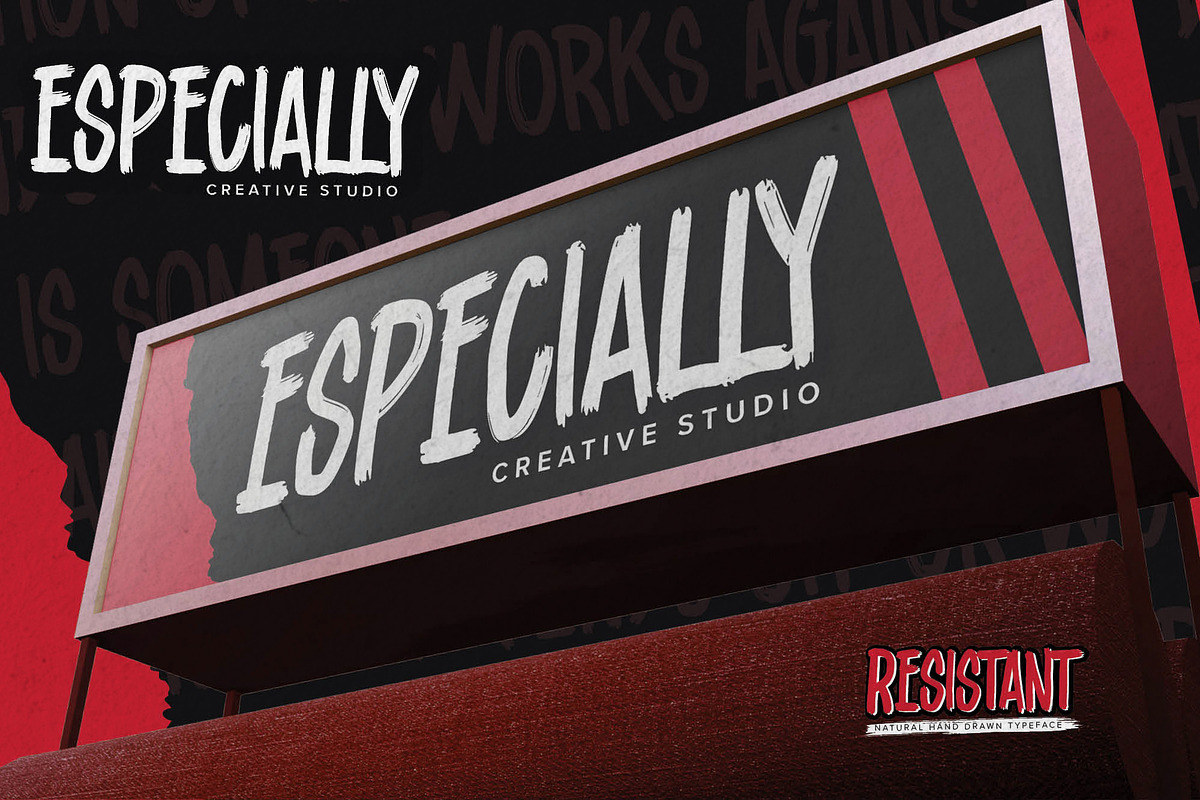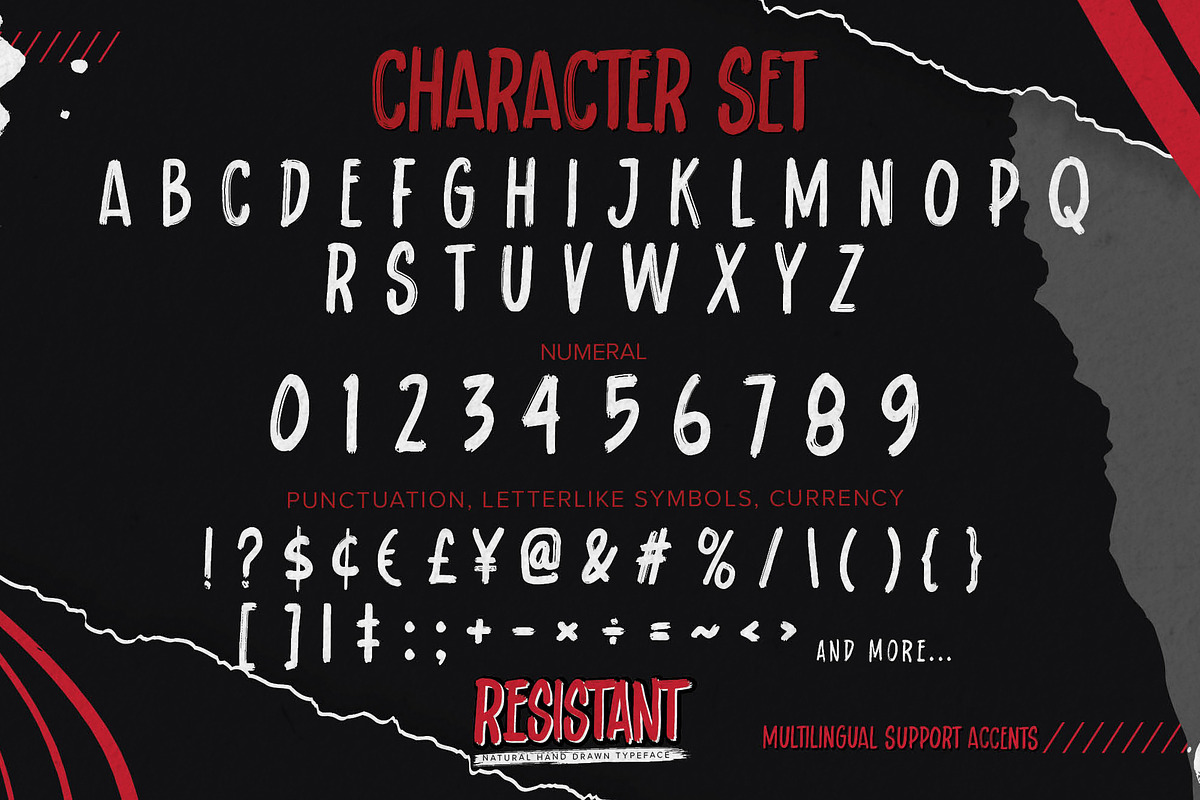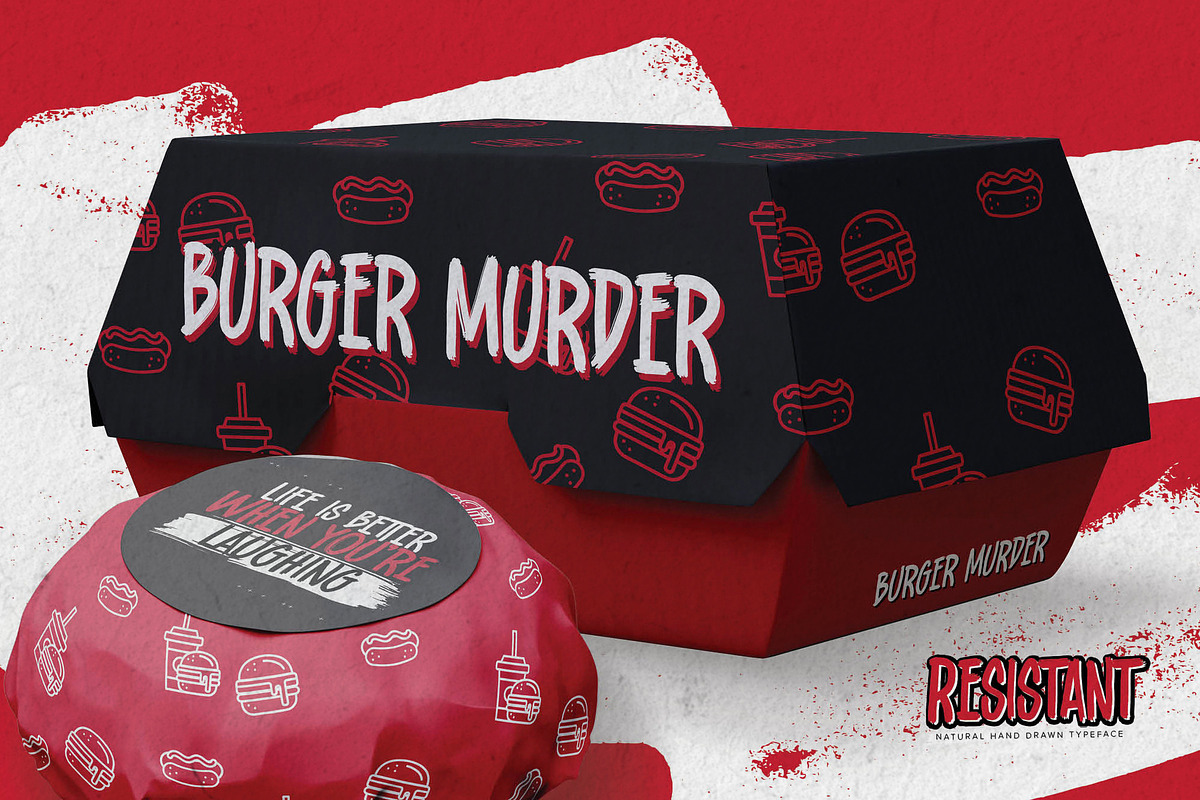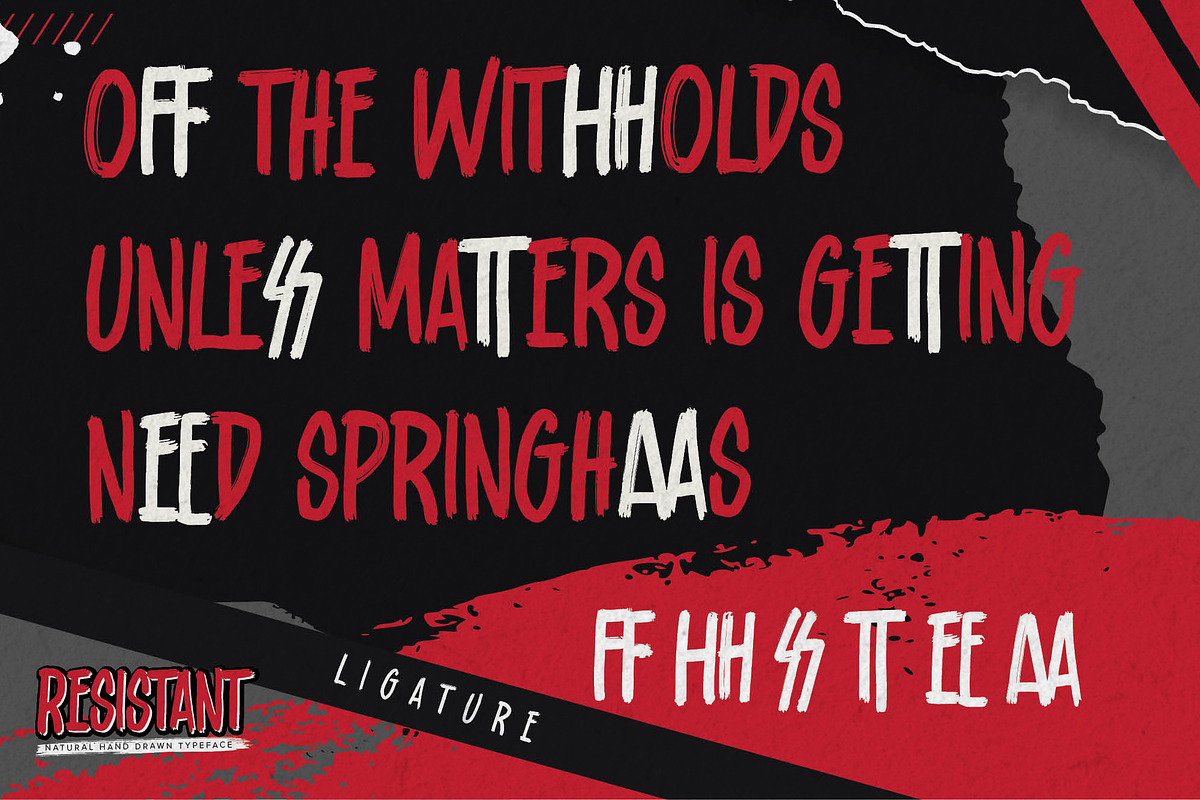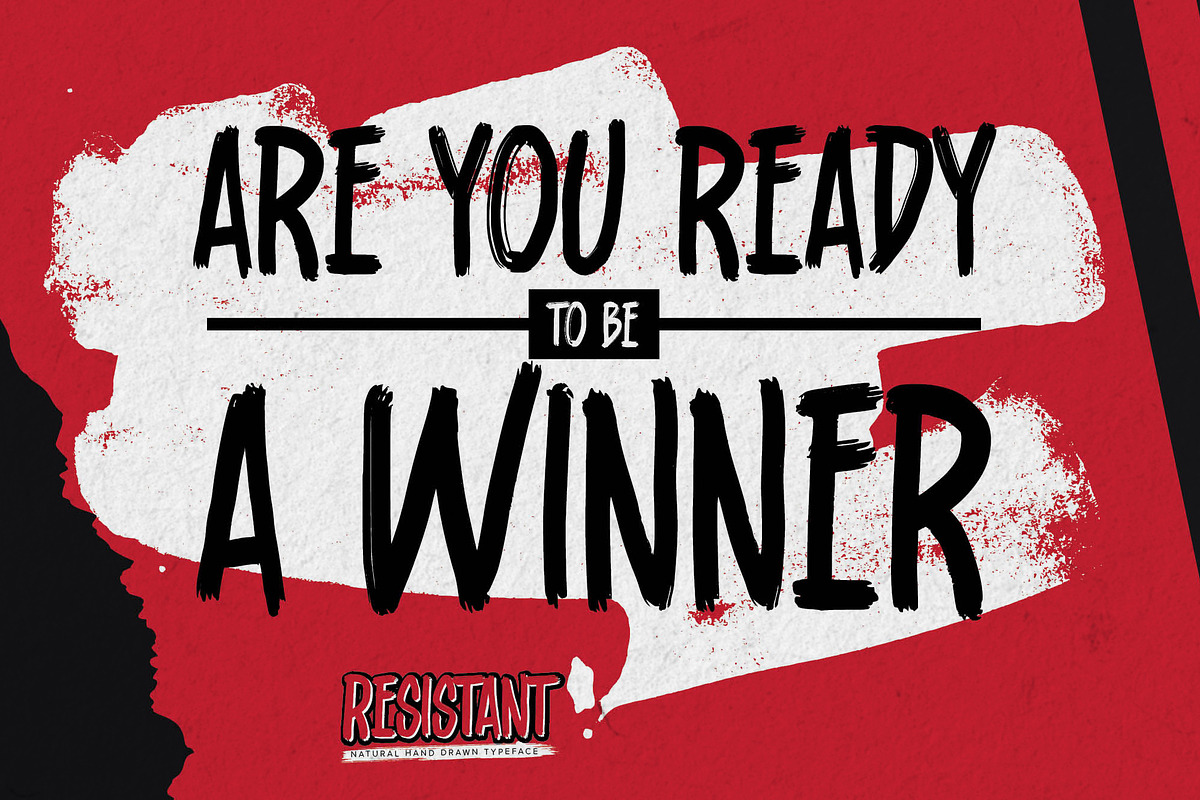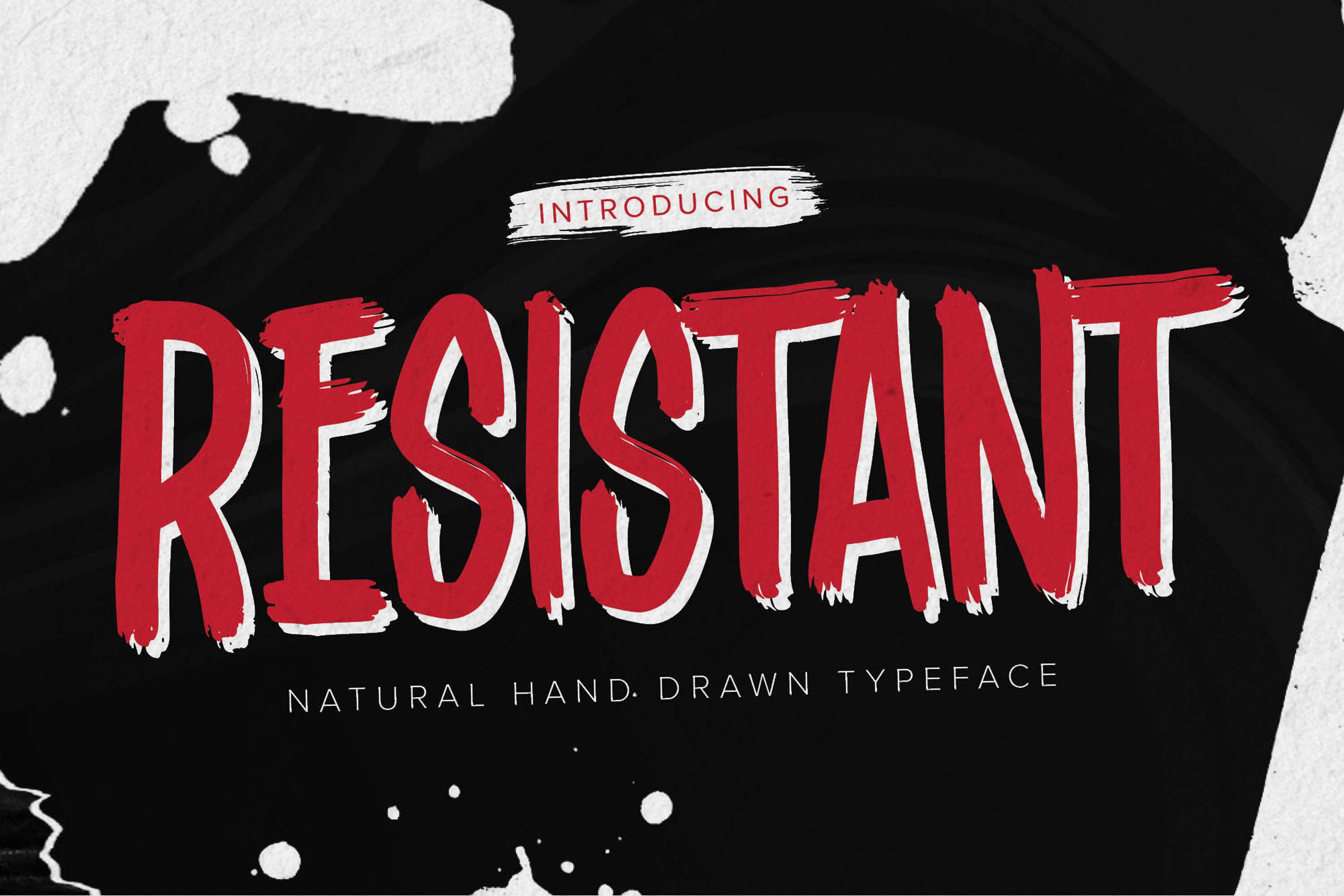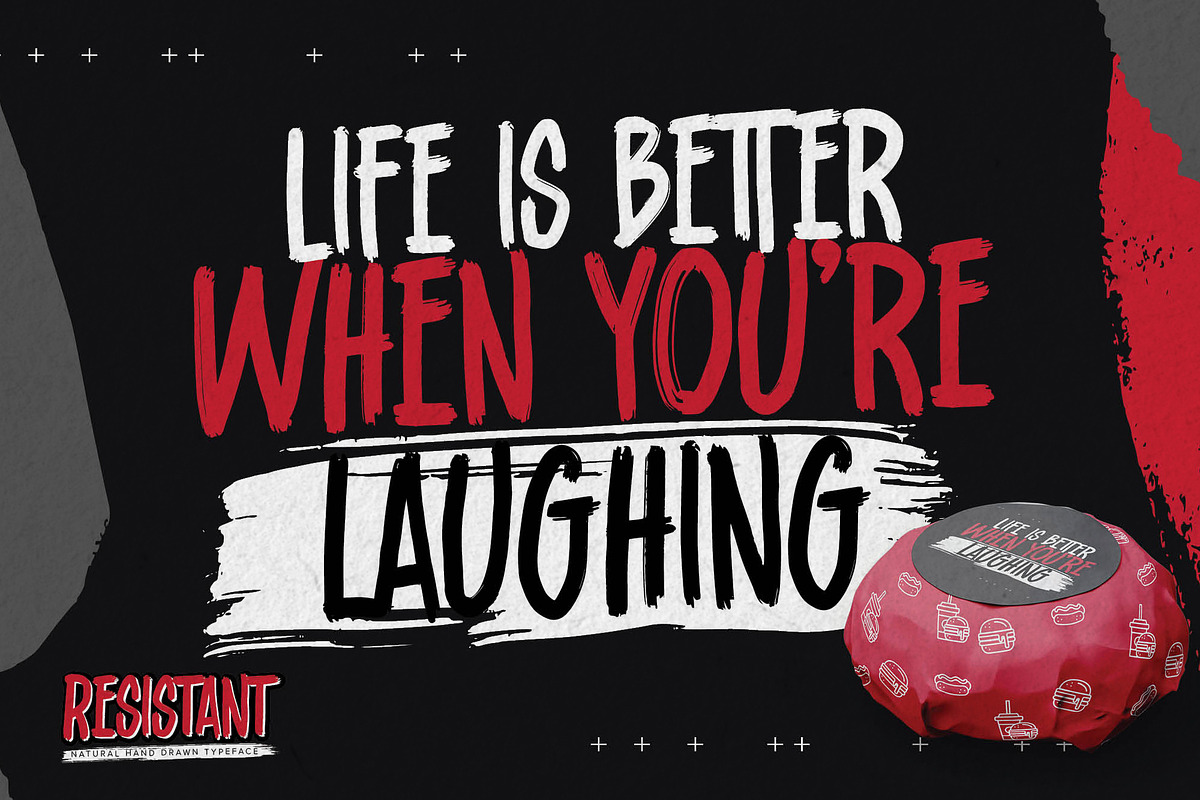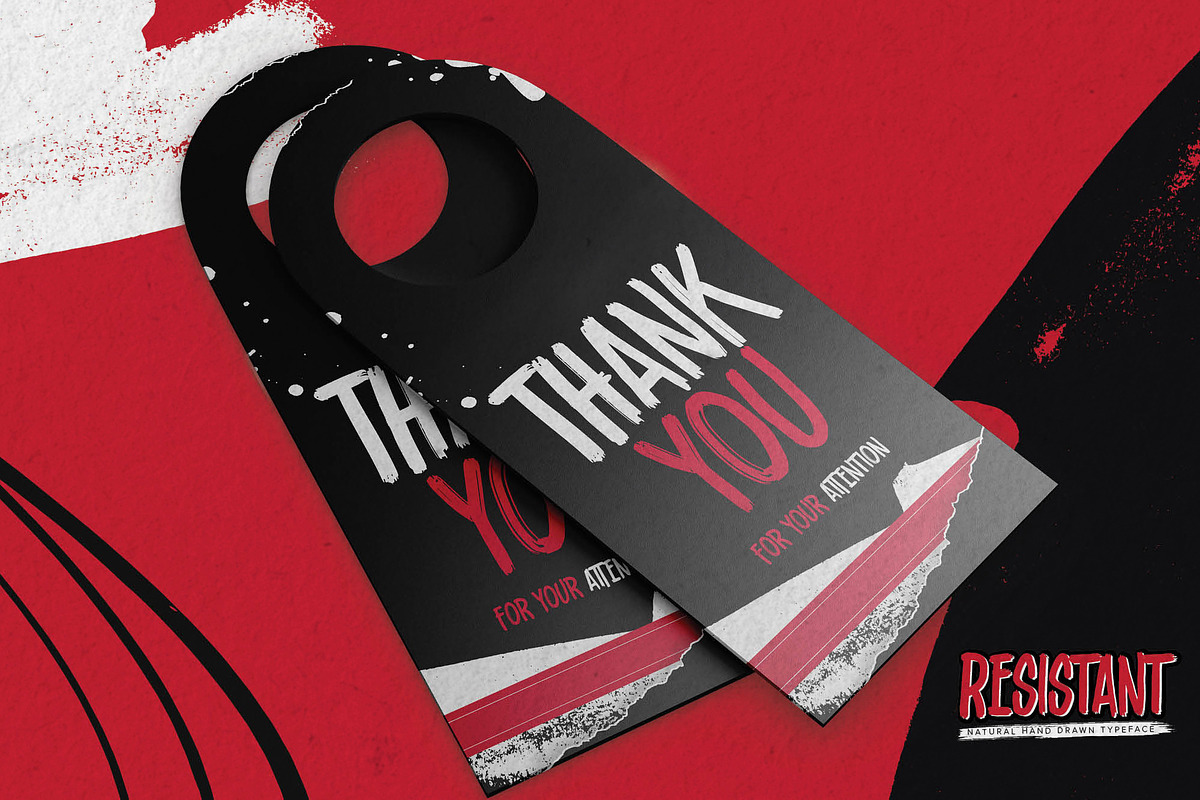
Resistant-Natural Hand Draw Typeface
Introducing Resistant – Natural Hand Draw Typeface is a that is written casually and quickly. Letters are made with brushes on paper. Then scanned and carefully drawn into vector format. That is why Resistant has charming, authentic and relaxed characteristic with a more natural look to your text with a more natural look to your text. You can activate Ligature OpenType panel to make the. It also has many alternatives and underlines that make your text and design more interesting. Resistant is perfect for homeware designs,branding projects, Logo design,Quotes roduct packaging